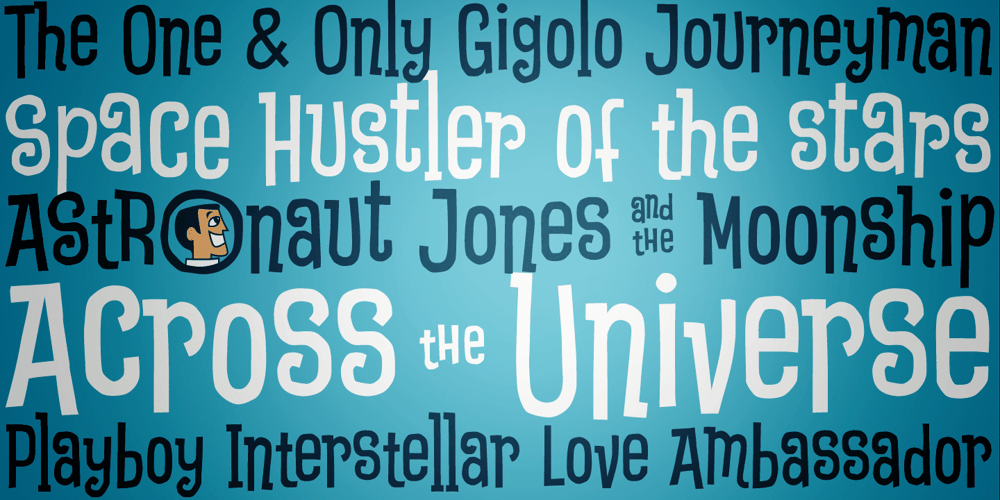
Astronaut Jones Font Family was designed by Phil Bracco and published by Pink Broccoli. Astronaut Jones contains 1 styles and family package options. A light hearted comic and clumsy typestyle inspired by an old pulp novel called “The Astronaut”. Several fun ornament characters can be accessed by turning on Discretionary alternates and typing “jones” for the Astronaut Head in an O, “atom” for a spirograph atom symbol, “little dipper” and “big dipper” for the constellations, as well as alternate “the”, “and”, and stacked “and the” characters.